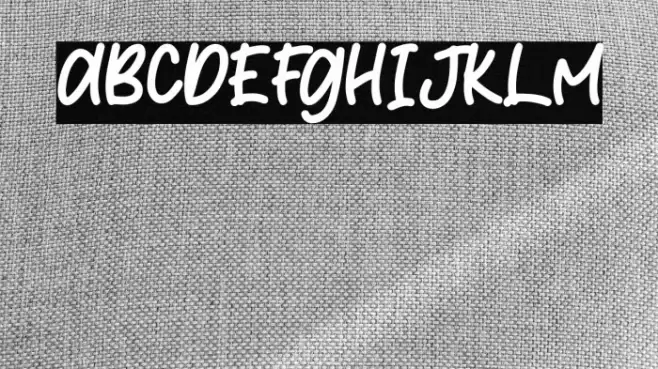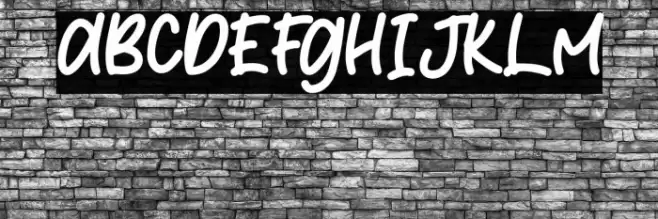
Meow Meong Font
Meow Meong Description
This playful and whimsical font features a handwritten style with smooth, rounded edges and a casual flow. The letters are slightly slanted, giving it a dynamic and lively appearance. The uppercase and lowercase characters maintain a consistent style, with the lowercase letters having a slightly smaller and more compact form. The numerals are clear and easy to read, matching the overall aesthetic of the alphabet. Special characters are included, maintaining the same playful and approachable design. This font is ideal for projects that require a friendly and informal touch.
A playful, handwritten font with smooth, rounded edges and a casual flow from Uncategorized fonts.
- Font: Meow Meong
- Proposed Projects: Ideal for greeting cards, children's books, playful branding, and casual invitations.
- Overall Style: Playful
- Use Case: Logos, Headlines, Informal Text